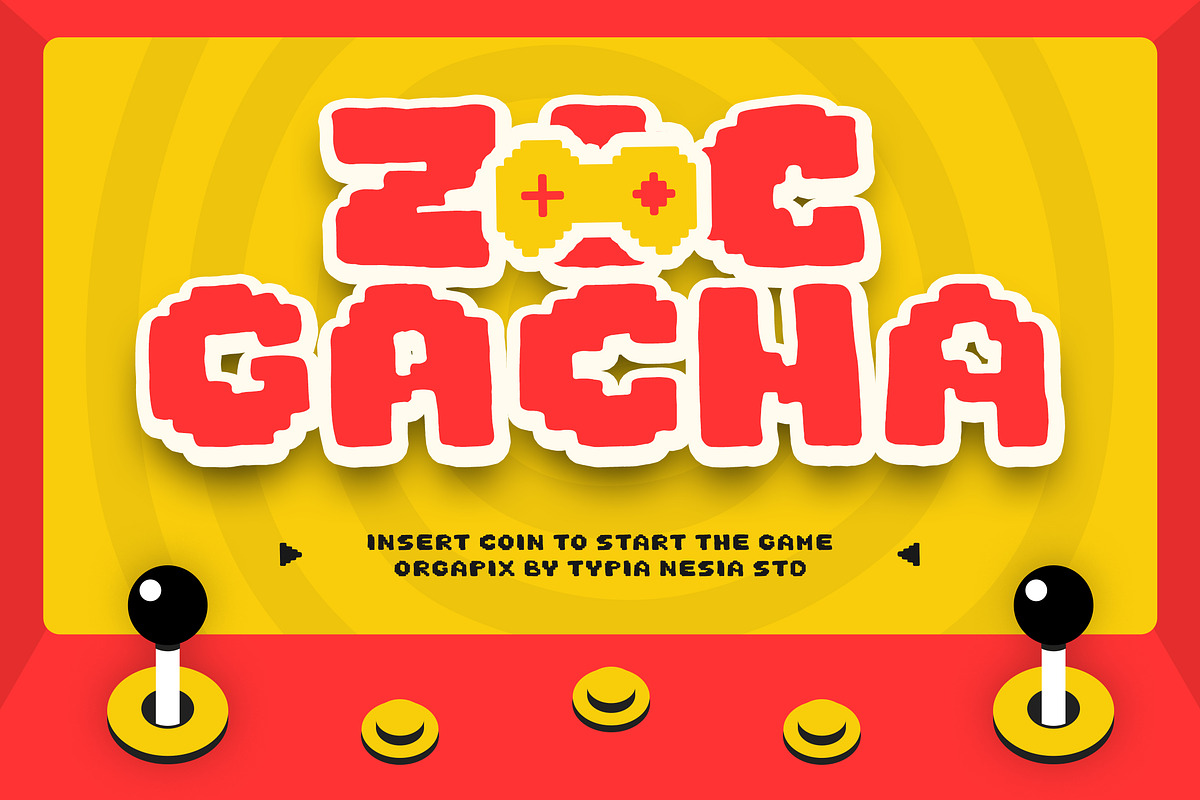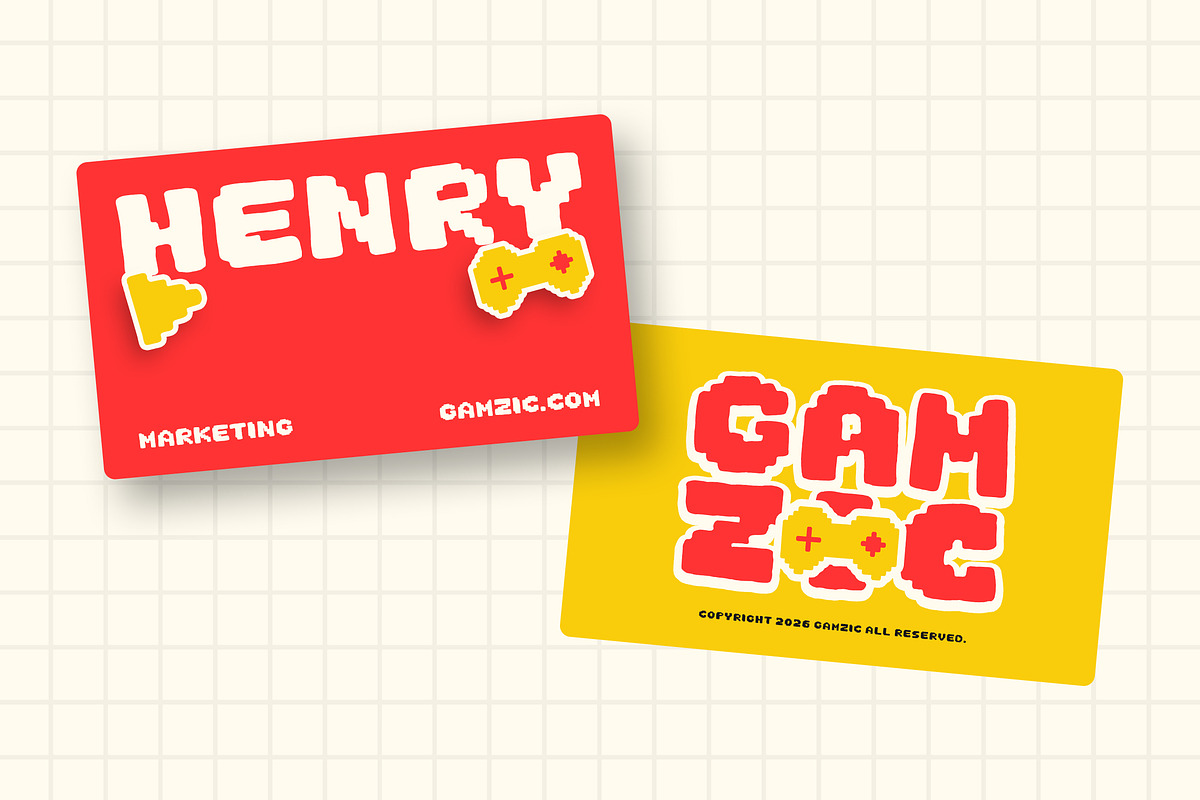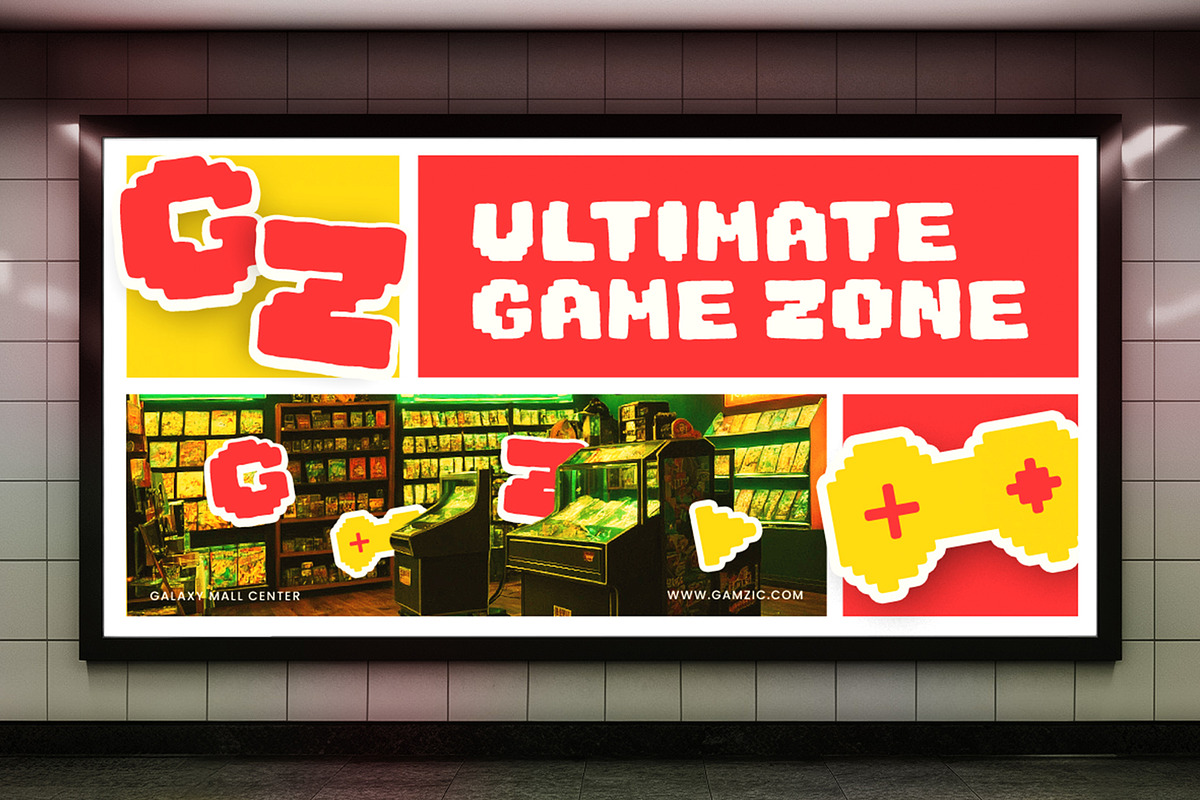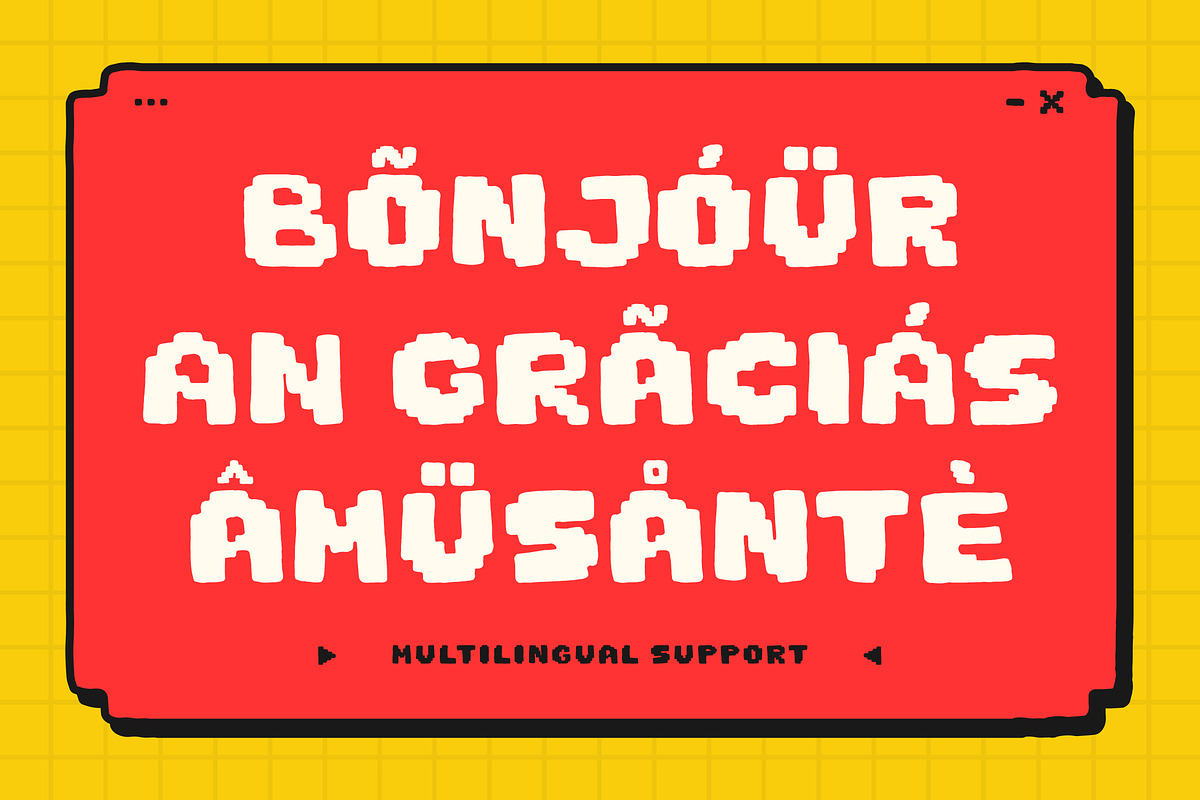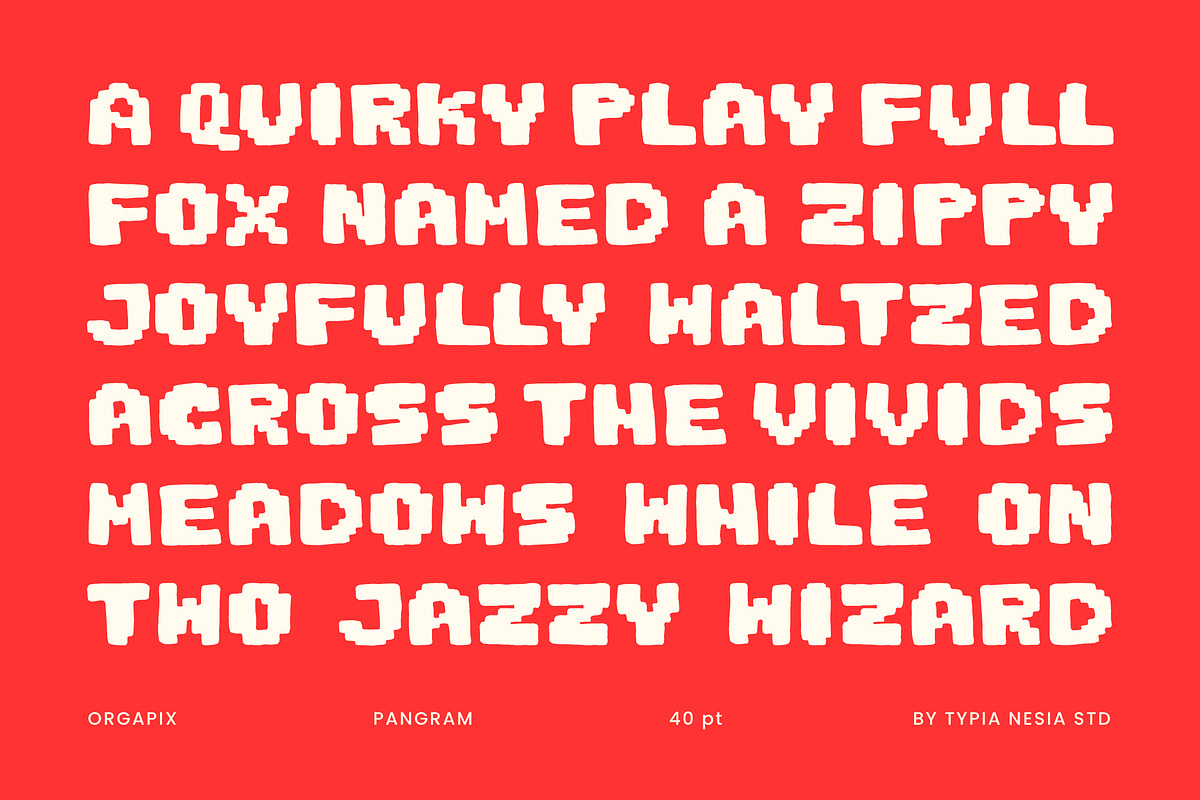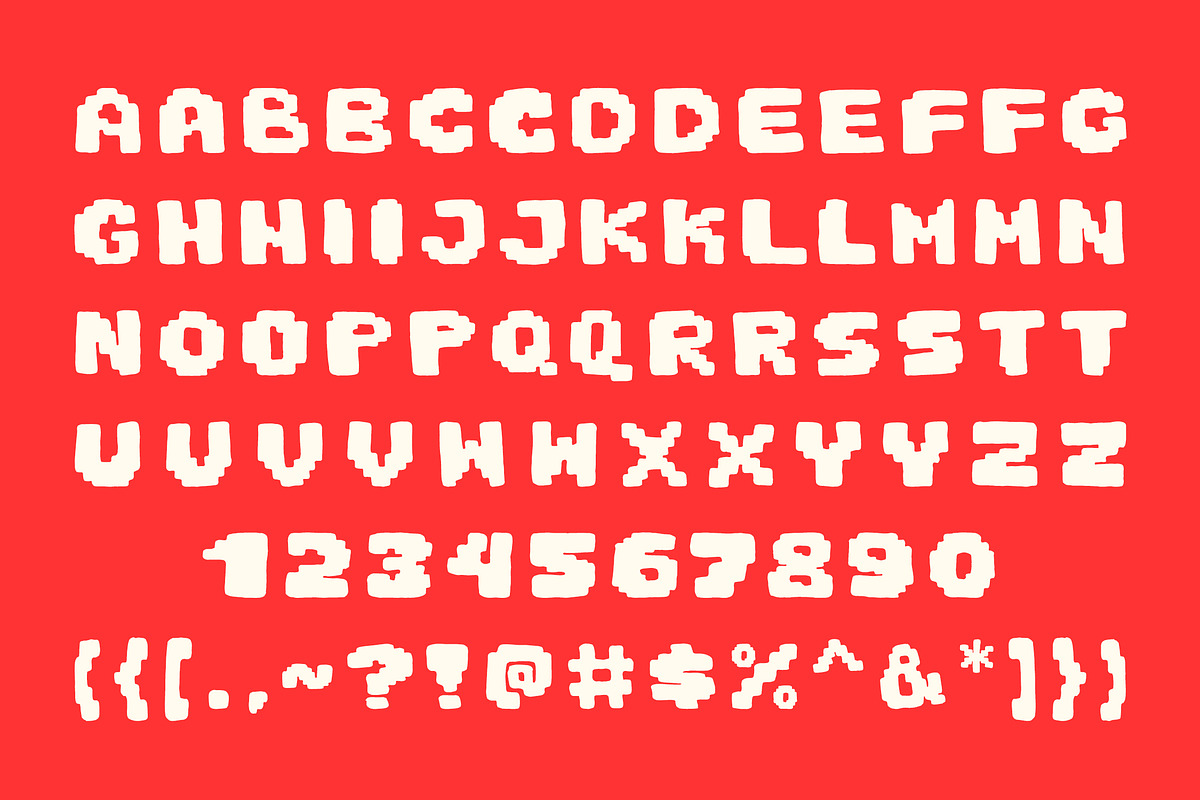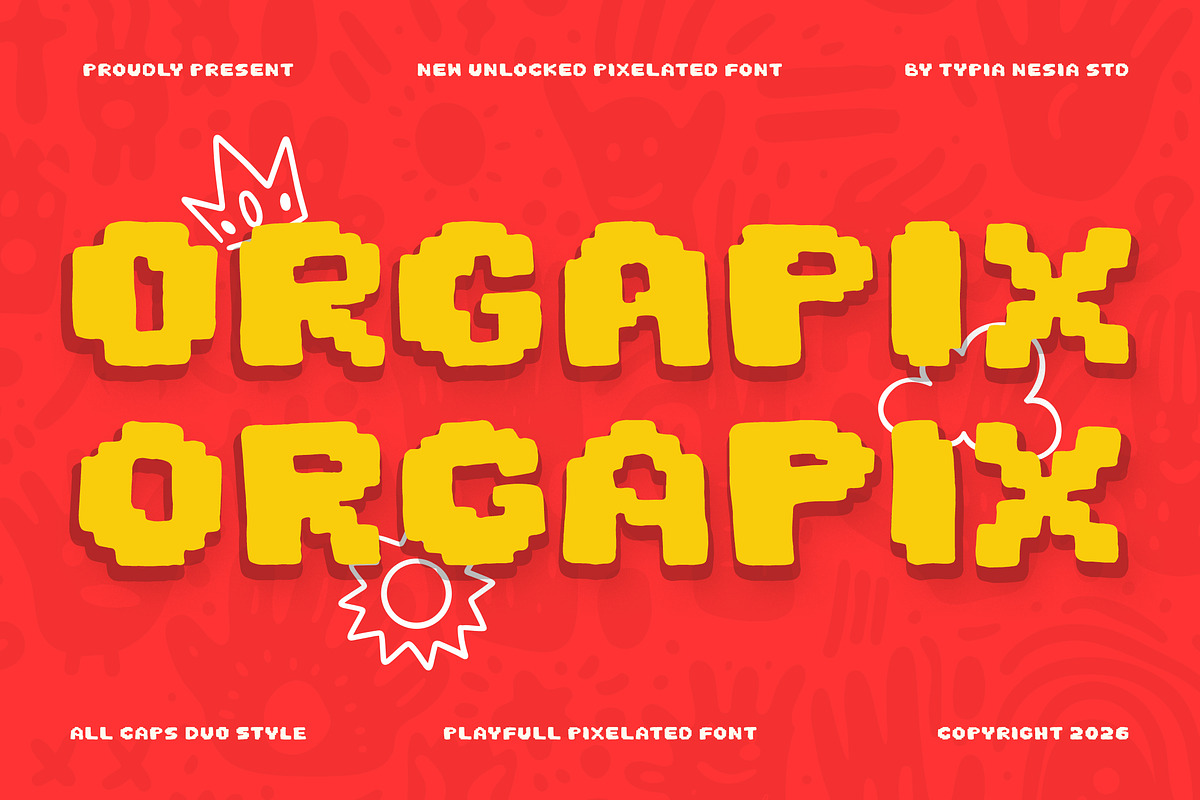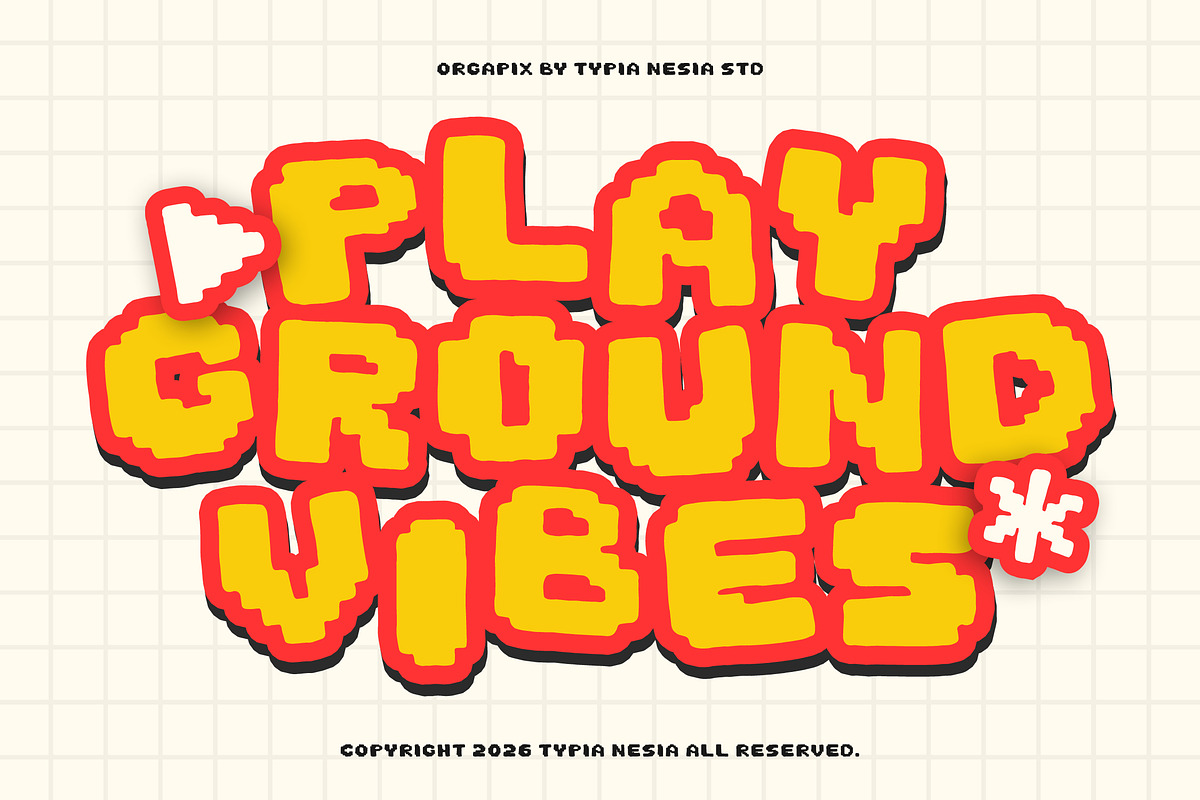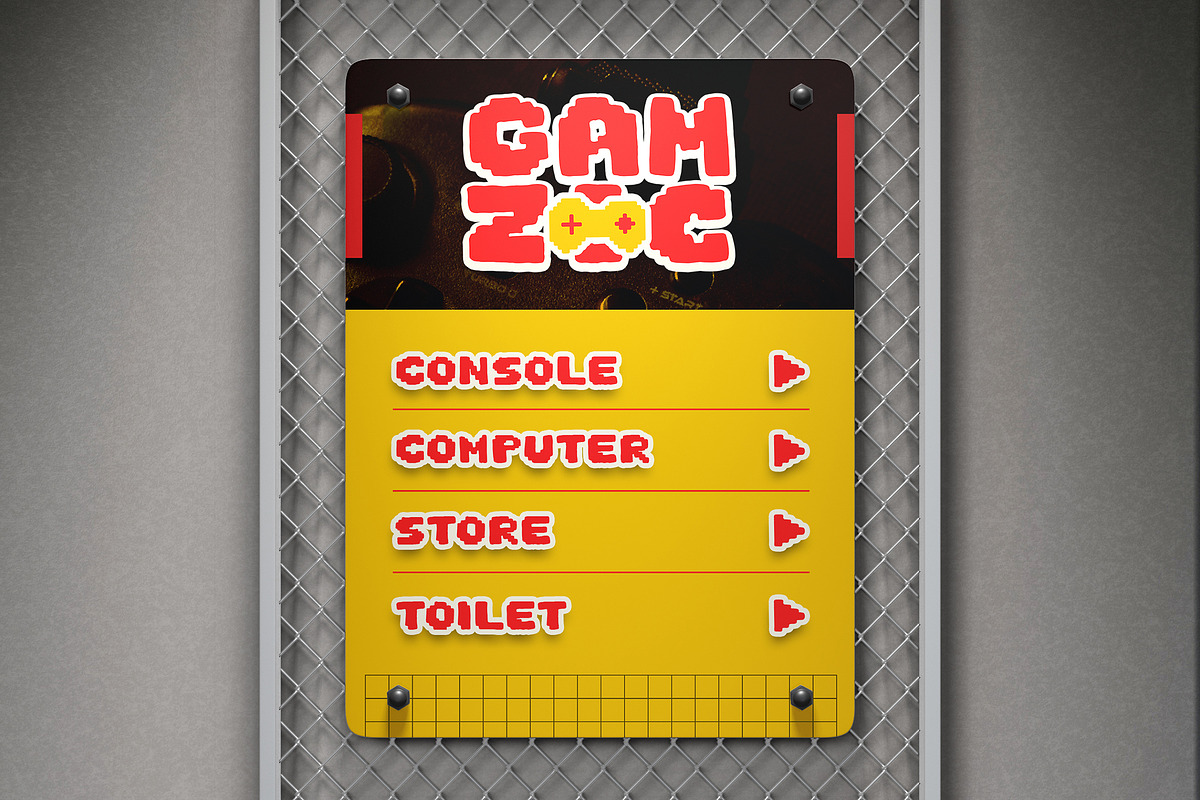
Orgapix - Organic Doodle Pixel Font
Orgapix - Organic Imperfect Doodle Pixel Font - Playful Retro Game Cartoon Logo Font
Orgapix is a playful pixelated display font that blends retro arcade vibes with a fun, hand-drawn personality. Inspired by classic game graphics, cartoon visuals, and organic pixel shapes, Orgapix features bold, imperfect, doodle-style letterforms that feel lively and expressive. With its pixelated and slightly rough construction, Orgapix is perfect for game design, kids’ projects, arcade themes, logos, playful branding, posters, creative packaging, and any project that needs a touch of organic, imperfect pixel style.